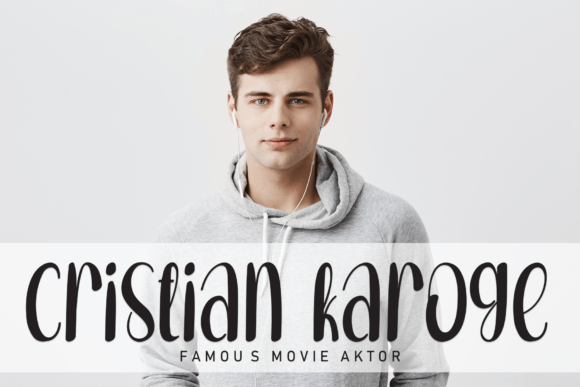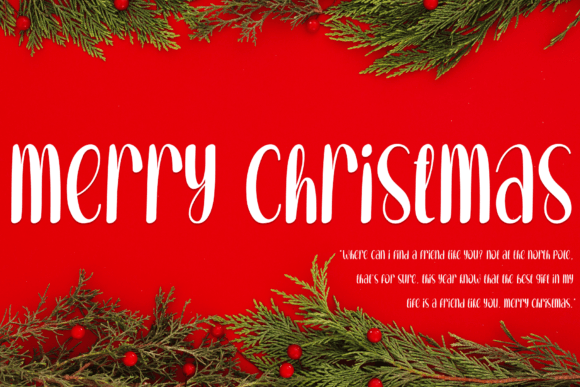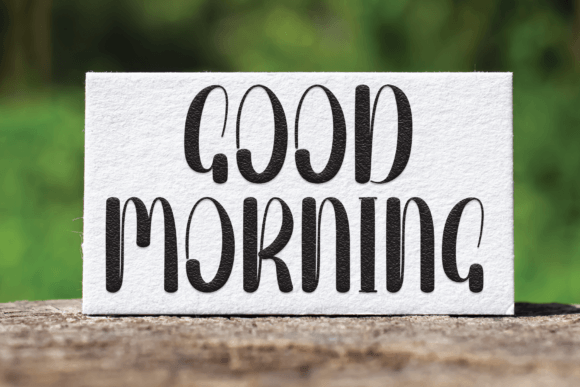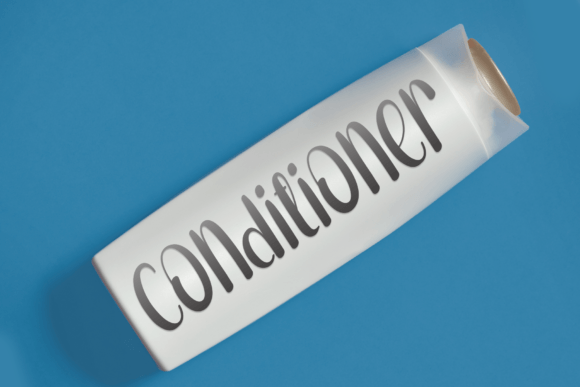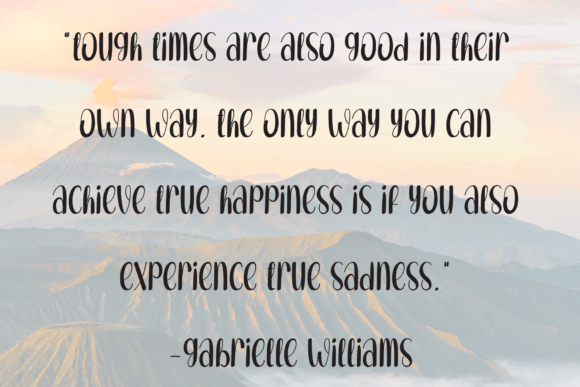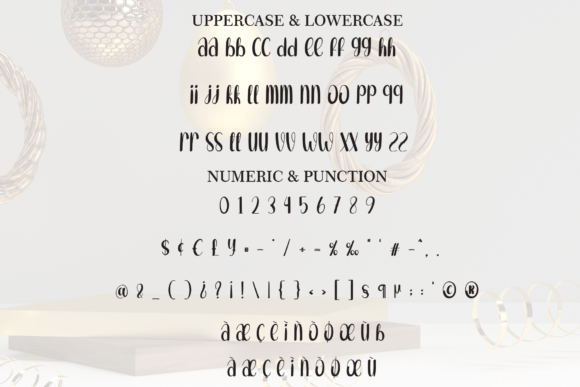
Introduction to Easter Display Font
As a designer, there’s nothing quite like the thrill of bringing a creative project to life. Whether it’s a wedding invitation, a birthday card, or a social media graphic, the right font can make all the difference. And that’s where the Easter Display Font comes in – a sweet and friendly handwritten font that’s perfect for adding a touch of warmth and personality to your designs.
With its high-quality, cursive script and transparent background, the Easter Display Font is a valuable resource for designers looking to add a little extra flair to their work. And the best part? It’s available for free download, making it an accessible and versatile design tool for anyone looking to elevate their creative projects.
Whether you’re working on a personal project or a commercial design, the Easter Display Font is sure to be a hit – and with its easy-to-use, fun design, it’s a great choice for designers of all skill levels.
Key Features of Easter Display Font
- High-quality, vector-based design for crisp and clear display
- Transparent background for seamless integration into creative projects
- Perfect for Easter-themed designs, decorations, and crafts
- Designed to be a versatile design resource for various creative projects
Honest Review: Easter Display Font
I recently had the opportunity to work with the Easter Display Font, and I must say, it’s a great addition to any creative project. The font is free to download, which is a huge plus, especially for designers on a budget.
- ✨ High-quality design: The Easter Display Font is well-crafted and visually appealing, making it perfect for any design project that needs a bit of flair.
- ✨ Transparent background: The font has a transparent background, which allows for easy layering and manipulation in design software.
- ✨ Versatile: The Easter Display Font is suitable for a variety of design projects, from greeting cards to social media graphics.
However, I did encounter a few limitations when using the font:
- ⚠️ Limited character set: The font only includes a limited set of characters, which may not be suitable for longer text-based projects.
- ⚠️ Not ideal for small text: The font is best used for larger text sizes, as it can become difficult to read when scaled down.
Overall, I’m impressed with the Easter Display Font and would definitely recommend it as a design resource. Its high-quality design, transparent background, and versatility make it a valuable addition to any designer’s toolkit.
Tips for Getting the Most Out of Easter Display Font
Use Easter Display Font in combination with other design elements, such as images or graphics, to create a visually appealing design. Experiment with different font sizes, colors, and effects to get the most out of the font. You can also use Easter Display Font for personal or commercial projects.
Easter Display Font is commonly used for Easter-themed designs, such as invitations, social media graphics, and presentations. It’s also a great design resource for creating high-quality, creative projects. With its transparent background and high-quality design, Easter Display Font is a versatile font that can be used in a variety of contexts.